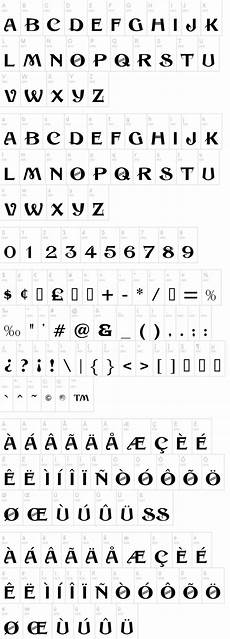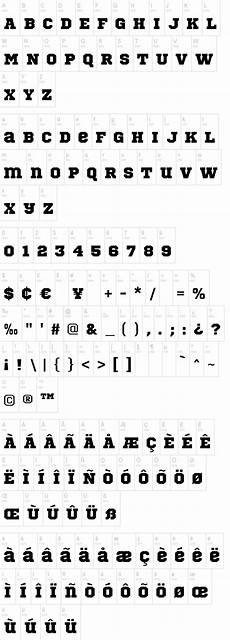
49ers Font Dafont
Size quentin caps by dieter steffmann.
49ers font dafont. 49ers font sports logo history. Download these free fonts from famous amateur and professional sports including team logos and other sources. Download donate to author.
The closest font you can get for the san francisco 49ers logo is clarendon std bold font. In fancy retro. What font does san francisco 49ers use.
49ers faithful font faithful is the official brand font of the san francisco 49ers based on the iconic sf monogram introduced in the early 1960s and a continuation of the 49ers logo type introduced in mid to late 1980s. It looks a lot like a condensed and outlined version of a font called thunderbird which is a true type font from corel. And it has available only in a single regular style along with 63 number of characters.
San francisco 49ers font experts exchange that specific font was probably designed for the 49ers or rather was modified from another font. The closest free font you can get is kameron bold font. Free alternative fonts for san francisco 49ers logo.